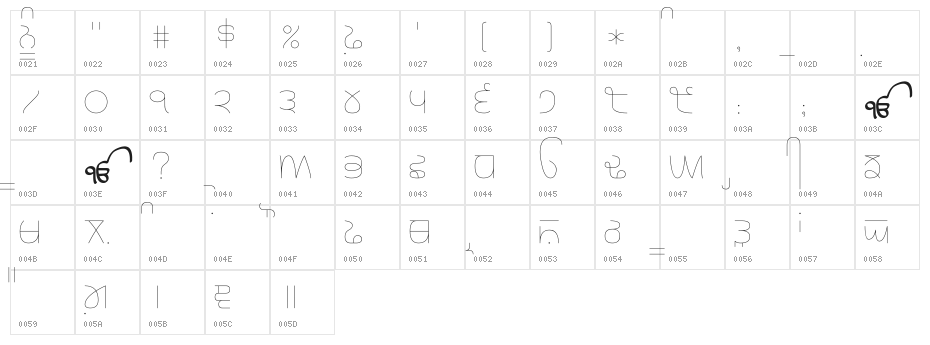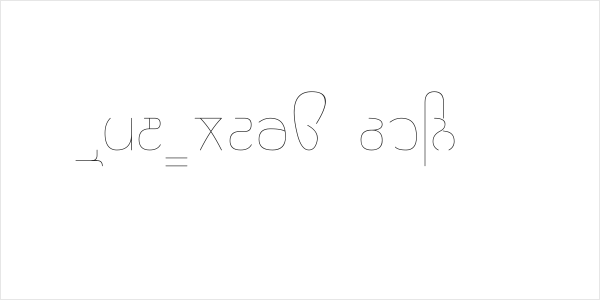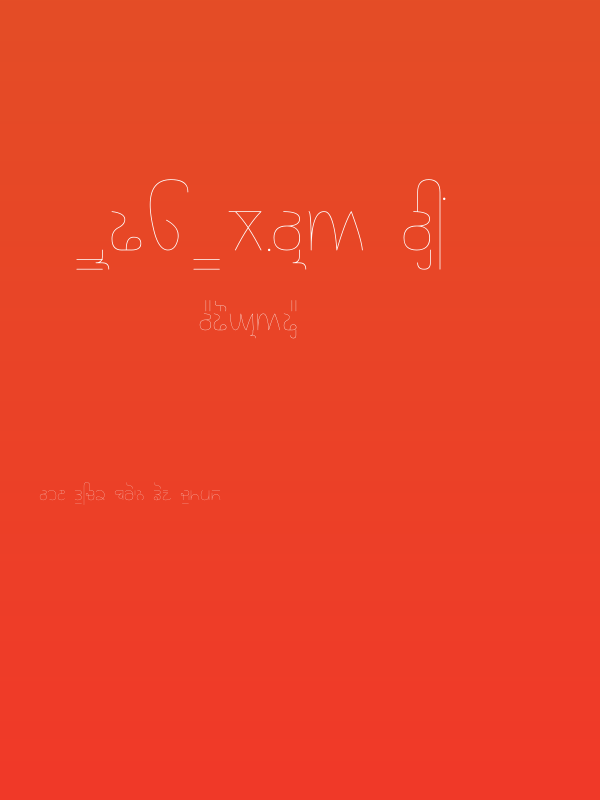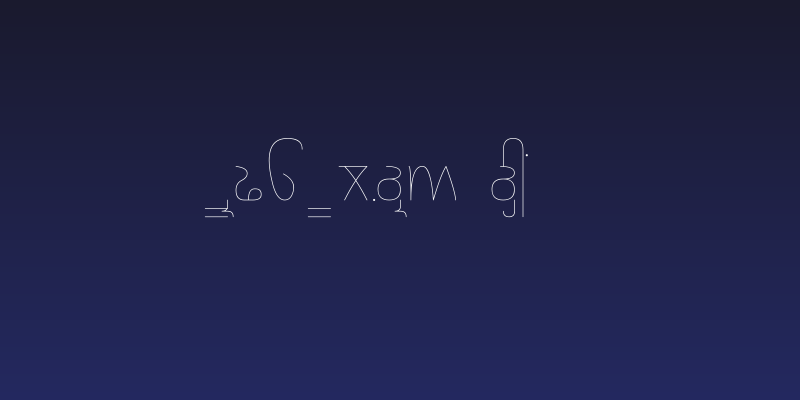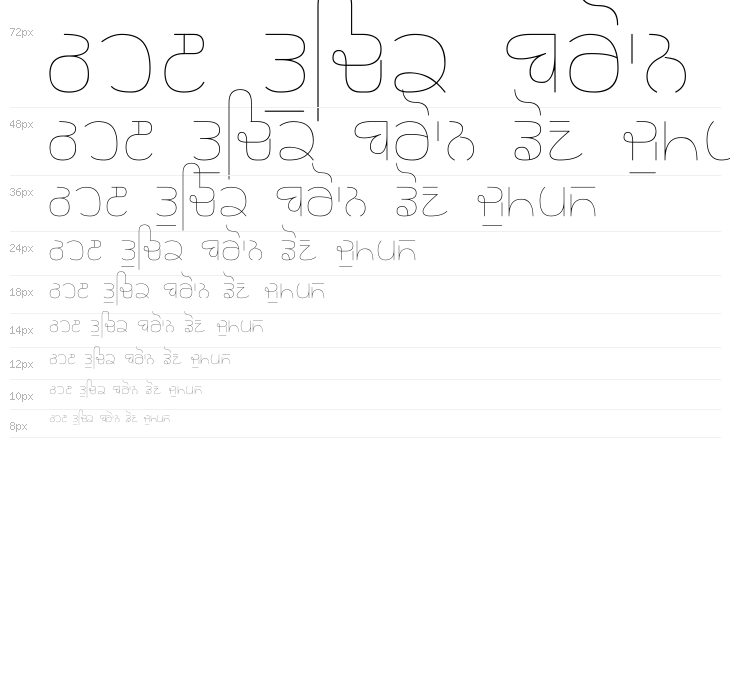
Rupe Ultra Thin Font
Rupe Ultra Thin Description
This font features an ultra-thin, elegant design with a modern and futuristic appeal. The characters are composed of delicate, continuous lines that form unique and abstract shapes, giving it a distinctive and artistic flair. The uppercase letters are particularly striking, with unconventional forms that challenge traditional typography norms. The lowercase letters maintain a consistent style, complementing the uppercase with their fluid and airy structure. Numbers and special characters follow the same aesthetic, ensuring a cohesive look across all text elements. This font's minimalistic and avant-garde style makes it suitable for creative and contemporary projects.
| Use Case | Logos, Posters, Creative Displays |
| Proposed Projects | Ideal for modern art projects, futuristic branding, avant-garde posters, and creative digital media. |